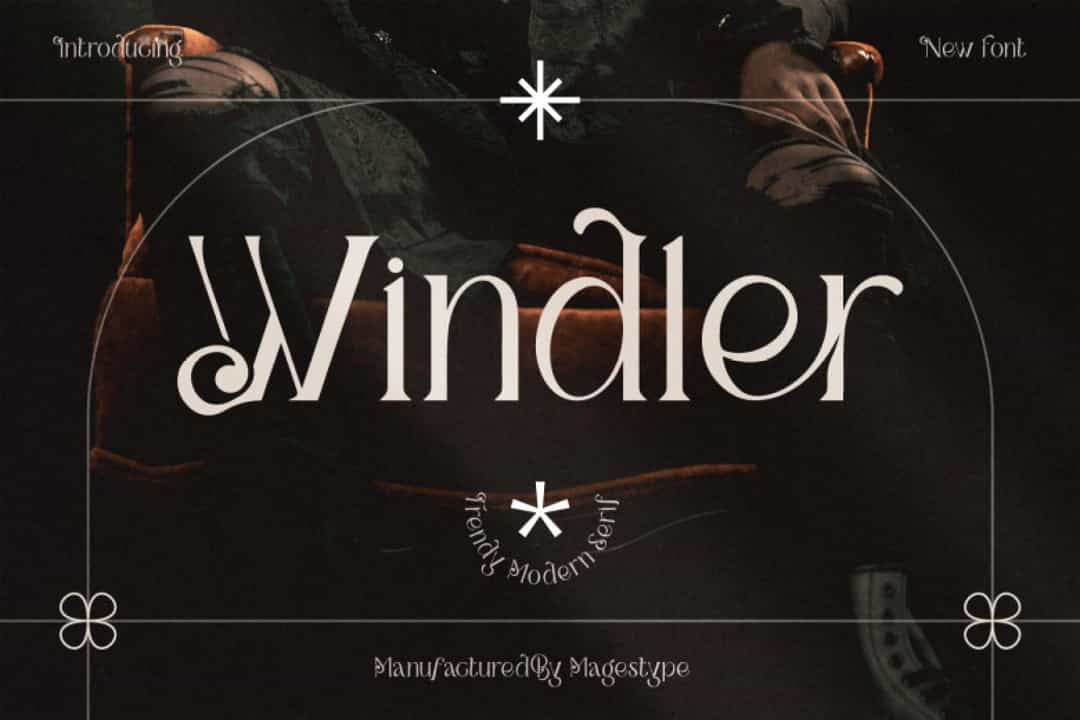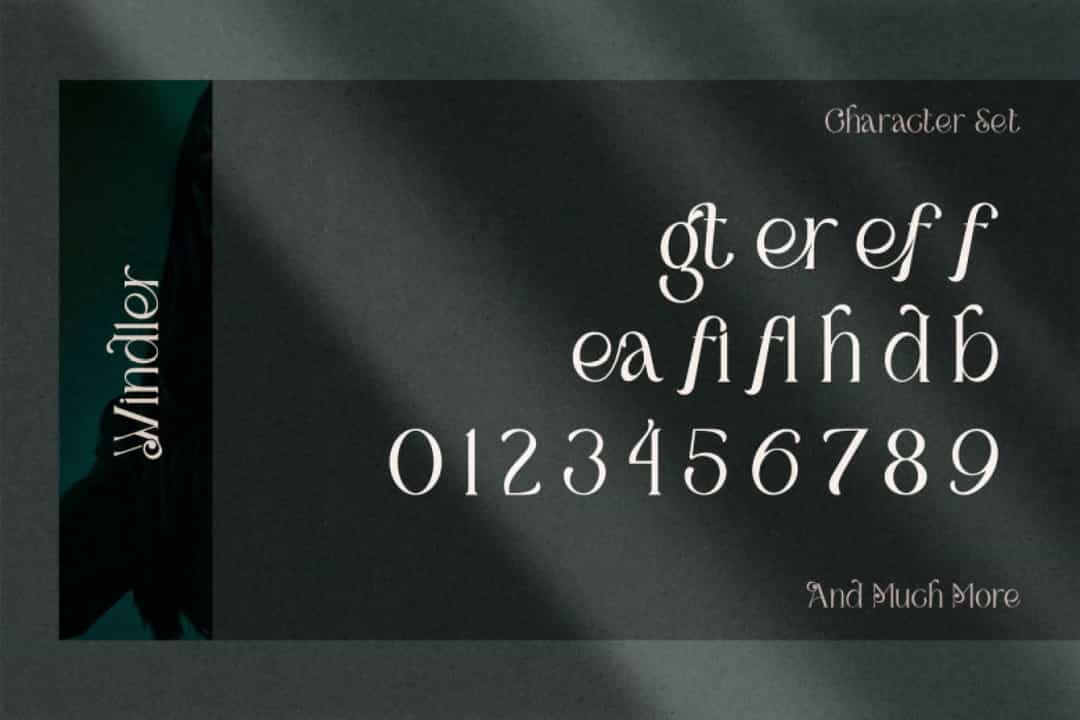
Discover Windler Font, part of the Serif collection—a versatile and unique font perfect for adding a personal touch to your projects. Download it for free and enjoy crafting designs with style, from invitations to social media posts. This font is available exclusively for personal use, giving you the freedom to create without limits. Unlock your creativity with Windler Font today!
Windler Serif is an exquisitely modern, contemporary and stylish serif font designed by magestic.std that you can use to make beautiful wedding invitations, gorgeous stationary pieces, eye-catching tweets on social networks and so much more! This font can make any piece look modern yet classic at once!